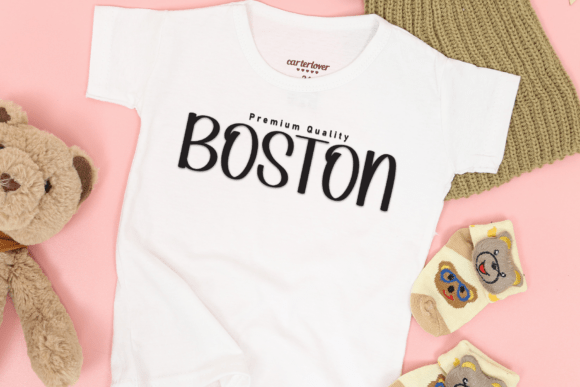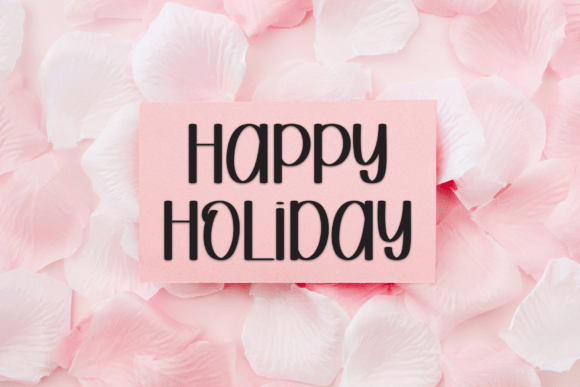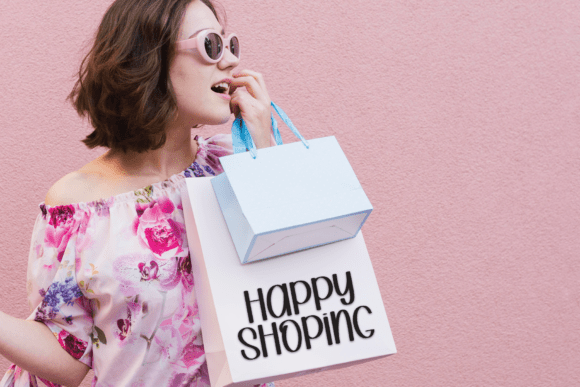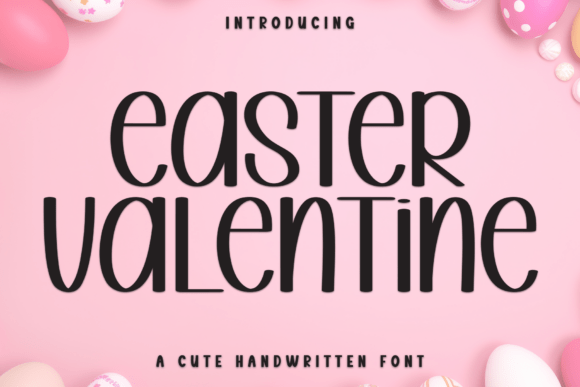
Introduction to Easter Valentine Font
Experience the warmth and charm of this artfully crafted handwritten font, designed to imbue joy and magic into your artistic creations.
With its effortless sophistication that playfully teeters on the edge of whimsy, this distinctive typeface stands out as an impeccable choice for creating beautiful wedding invitations, expressive greeting cards, or any design project that could use a touch of cheer Add an elevated level of enchantment to your projects with a multifaceted typeface that’s as intriguing as it is varied.
Key Features of Easter Valentine Font
Why Choose Easter Valentine Font?
Easter Valentine Font offers exceptional quality and versatility, making it a valuable addition to your design toolkit. Whether you’re creating for personal projects or commercial use, Easter Valentine Font delivers professional results.